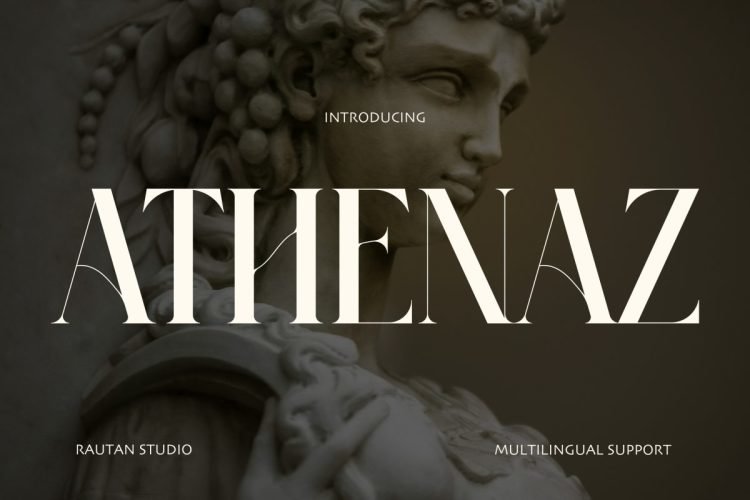
Athenaz Font
Athenaz brings an editorial feel to your typography. Inspired by classic European magazines, this modern serif blends bold, high-contrast strokes with fine hairlines for a balanced look.
Every headline set in Athenaz looks sophisticated and memorable. Its elegant design and stylish proportions give modern layouts a premium feel. Each character is crafted for clarity in both print and digital use.
Athenaz Serif Font